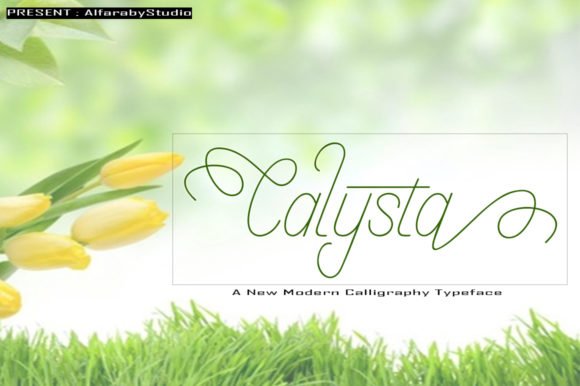
Discover the Timeless Elegance of Calysta Font
Have you ever found yourself stuck in a creative rut, desperately searching for the perfect font to bring your design to life? It’s a feeling we’ve all been there, staring at screens filled with endless options, hoping to stumble upon that elusive ‘aha’ moment. For designers, the right font can make all the difference in conveying a message, evoking emotions, and capturing the essence of a brand.
Enter Calysta Font, a masterfully crafted typeface that embodies the perfect blend of classic sophistication and modern minimalism. This elegant font is designed to inspire creativity, adding a touch of sophistication to any design project. With its timeless appeal, Calysta Font is a valuable asset for designers looking to elevate their work and leave a lasting impression.
Calysta Font Key Features
- Font Family: Calysta Font is a premium, high-end font family with multiple styles and weights.
- Unique Characteristics: Calysta Font features elegant, modern calligraphy with intricate details, making it perfect for luxury brands, high-end packaging, and sophisticated designs.
- Style Variations: The font family includes multiple styles, such as Regular, Bold, Italic, and Bold Italic, to provide flexibility for various design applications.
Designer Review: Calysta Font
Overall, I found the Calysta Font to be a solid, elegant choice for a variety of projects. ✨ The font’s rounded edges and organic feel make it well-suited for branding and packaging, where a touch of whimsy is desired. The font’s clean lines and minimalist aesthetic also make it a great choice for editorial and advertising projects where simplicity is key. ✨
However, I did notice a few limitations that may impact the font’s versatility. ⚠️ The Calysta Font is not suitable for projects that require a high level of contrast or bold typography, as the font’s rounded edges can make it difficult to read at smaller sizes. Additionally, the font’s limited character set may be a drawback for projects that require a wide range of special characters or languages. ⚠️
- Rounded edges and organic feel
- Clean lines and minimalist aesthetic
- Well-suited for branding, packaging, and editorial projects
- Limited character set
- Not suitable for high-contrast or bold typography
The Calysta Font is a solid choice for designers looking for a elegant and versatile font. While it may not be suitable for every project, it is a great option for those seeking a clean and sophisticated look. With some limitations in mind, I would recommend the Calysta Font to designers who value simplicity and elegance in their typography.
Calysta Font Practical Application Guide
Tips for Getting the Most Out of Calysta Font
Use Calysta Font for creative projects that require a unique, elegant touch.
Experiment with different font sizes, colors, and styles to achieve the desired effect.
Combine Calysta Font with other design elements, such as images and graphics, to create visually appealing designs.
Use Calysta Font for:
- Business cards and brochures
- Menu design and food labels
- Event branding and signage
Alternatives to Calysta Font for Designers